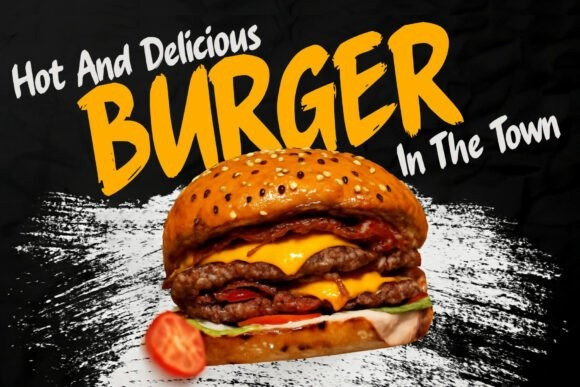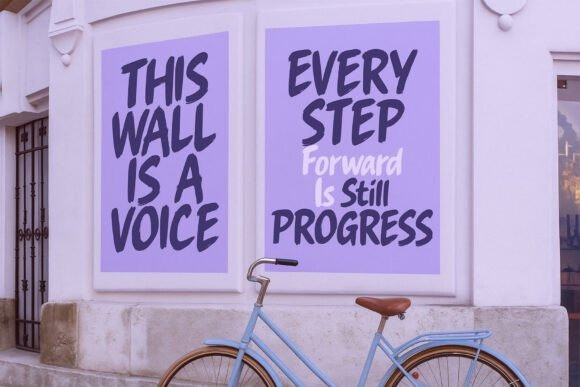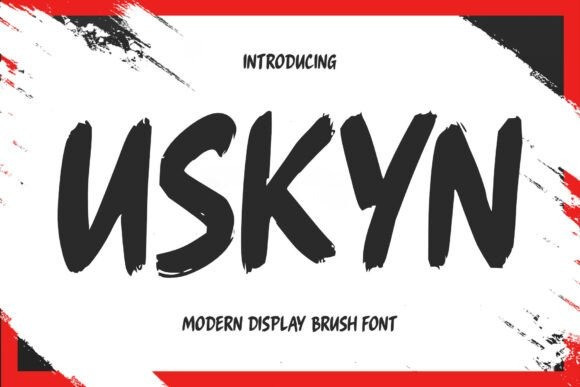
Uskyn Brush Font
Uskyn Brush Font – A Modern Brush Display Font. Uskyn blends bold curves with a fresh urban spirit, delivering a stylish brush script that brings striking energy to your visual designs. Whether you’re working on logo concepts, branding assets, packaging, handwritten quotes, or social media content, Uskyn ensures a modern, eye-catching finish.